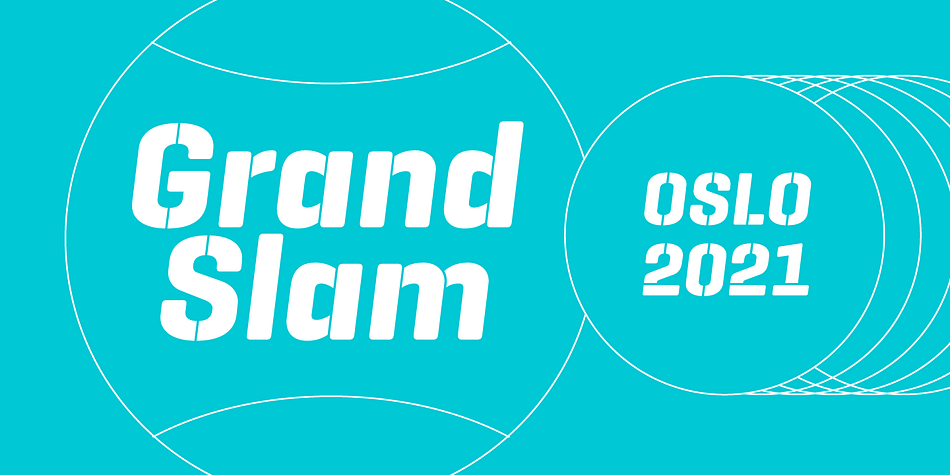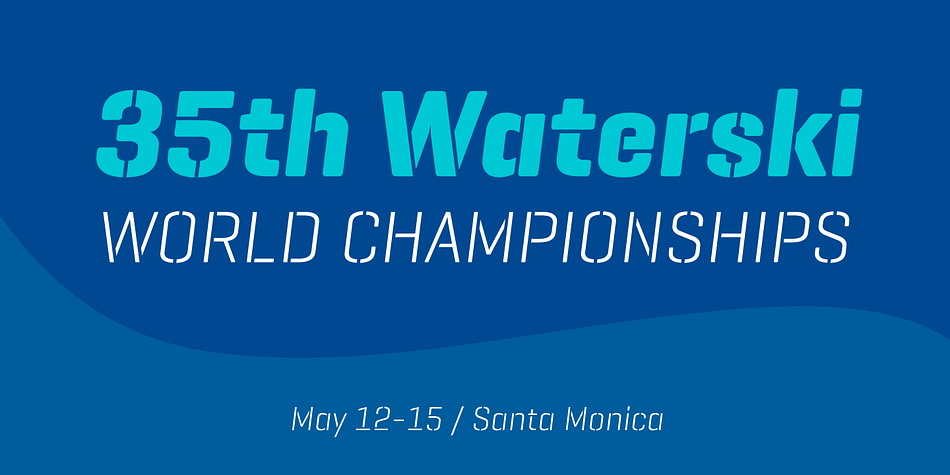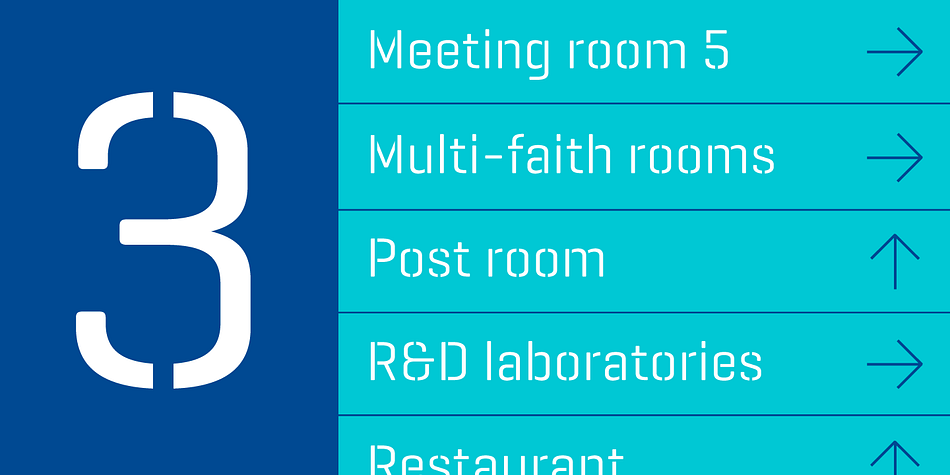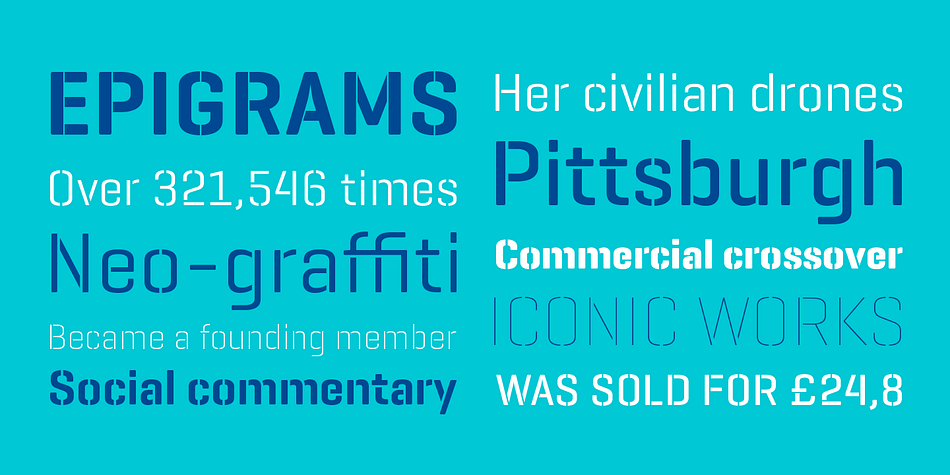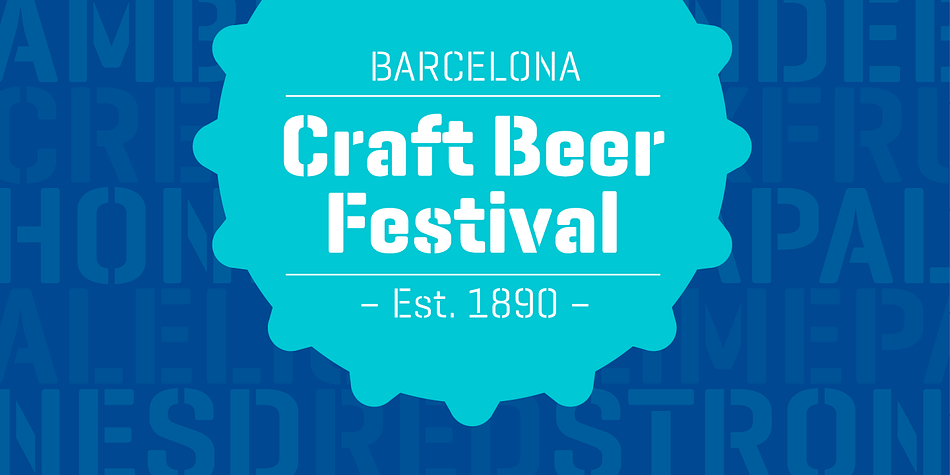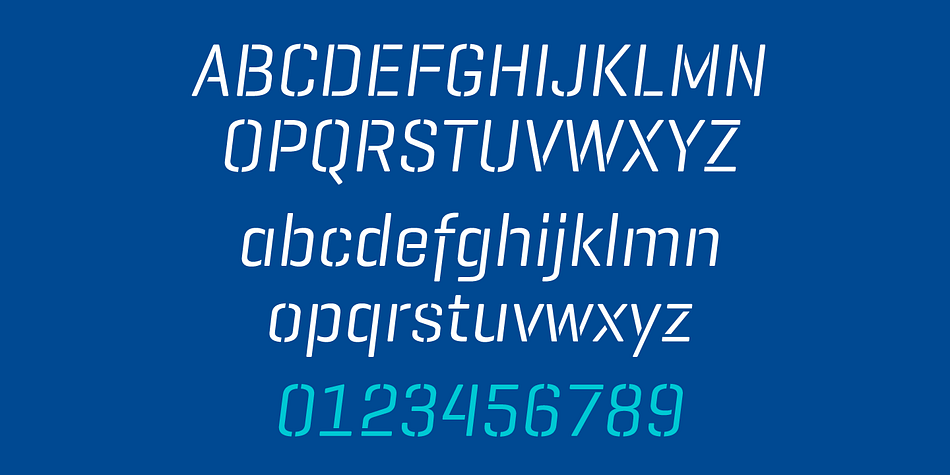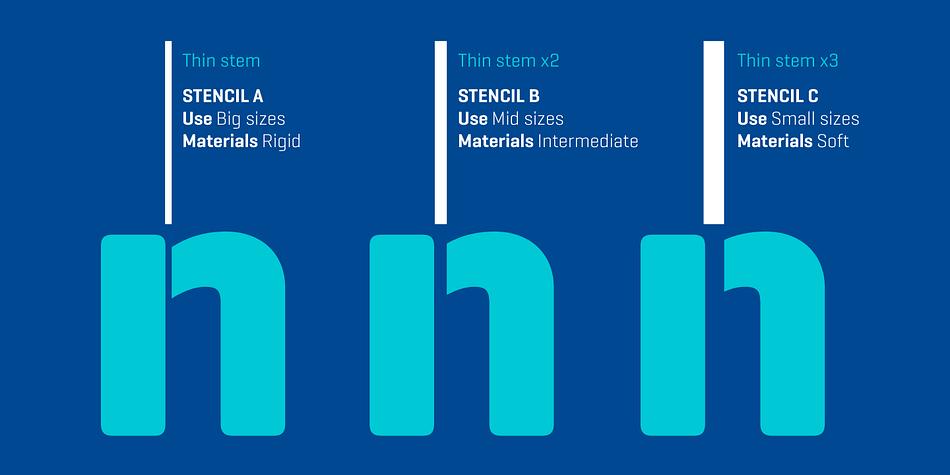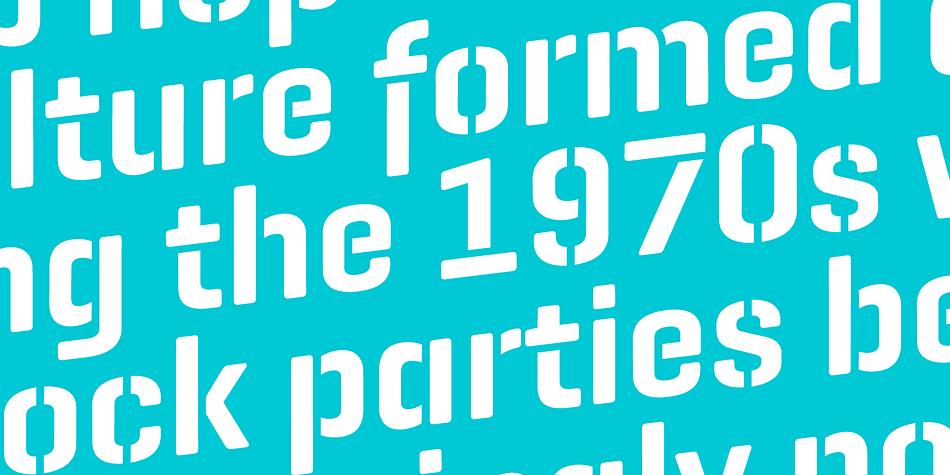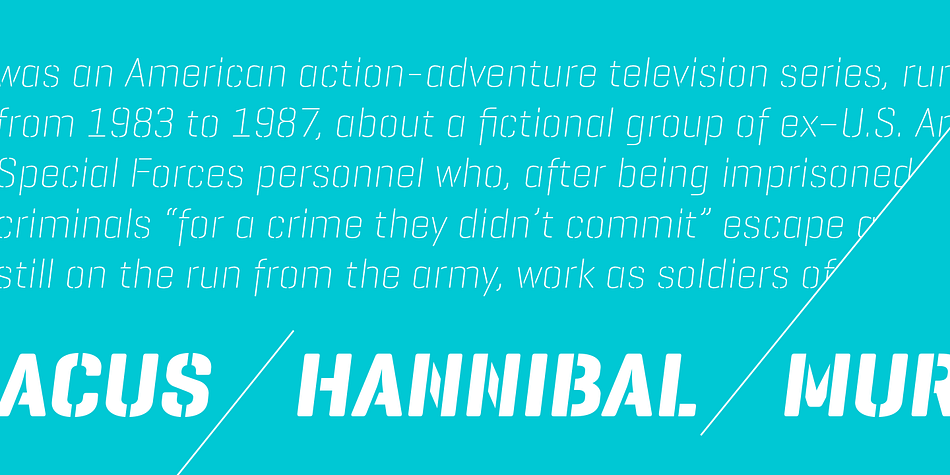
Designed by Eduardo Manso, Geogrotesque Stencil is a sans serif and stencil font family. This typeface has forty-two styles and was published by Emtype Foundry.
Geogrotesque Stencil is a member of the popular Geogrotesque family, and despite being thought as a display typeface, it goes one step further and tries to solve some of the typical problems with stencils fonts. Geogrotesque Stencil comes with 3 widths of cut (A, B and C). These cuts not only allow a better performance when printing at different sizes, you can also move across versions in accordance to the rigidity of the material used. The type family consists of 42 styles, 7 weights plus italics with 3 versions each.